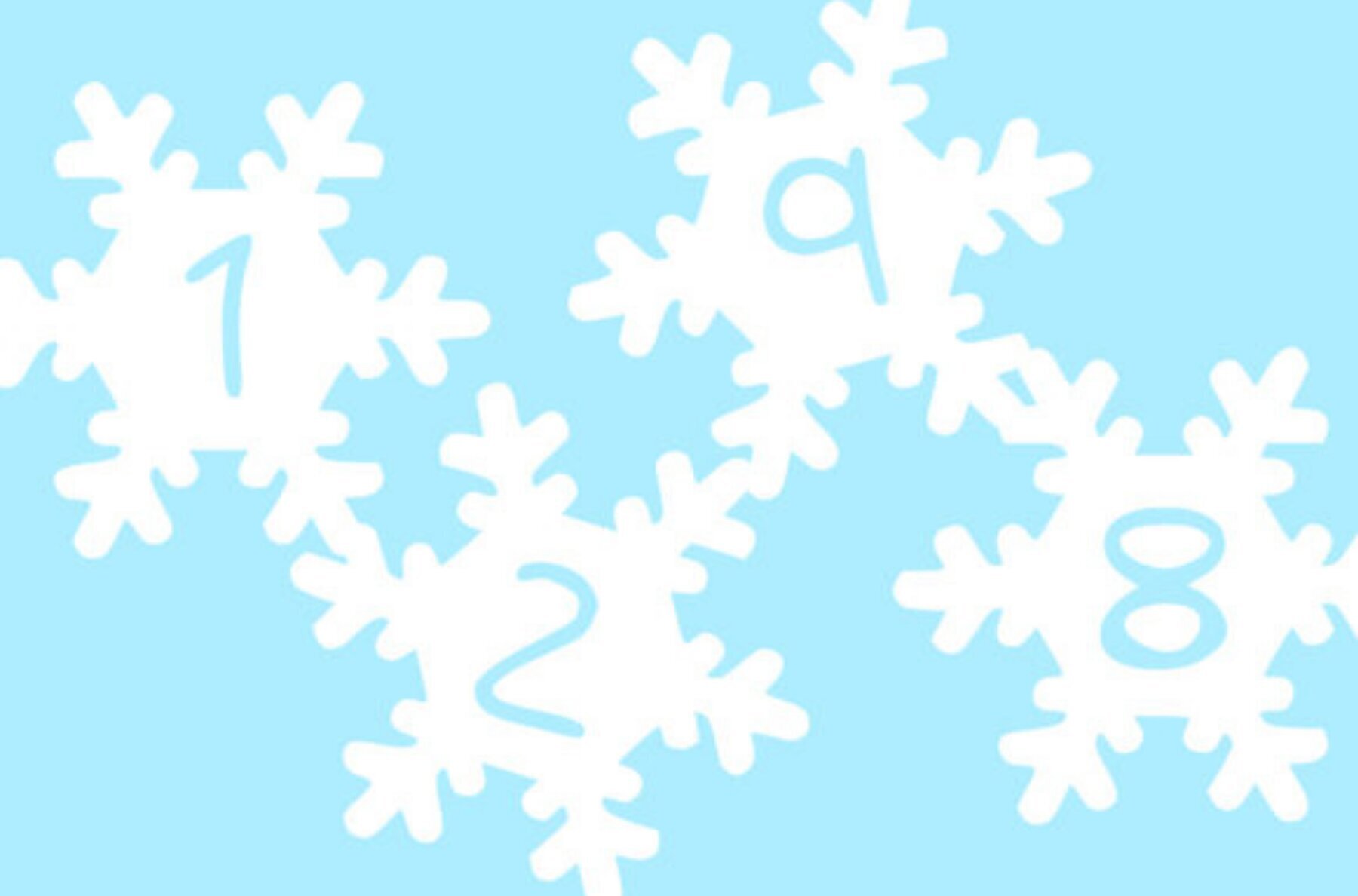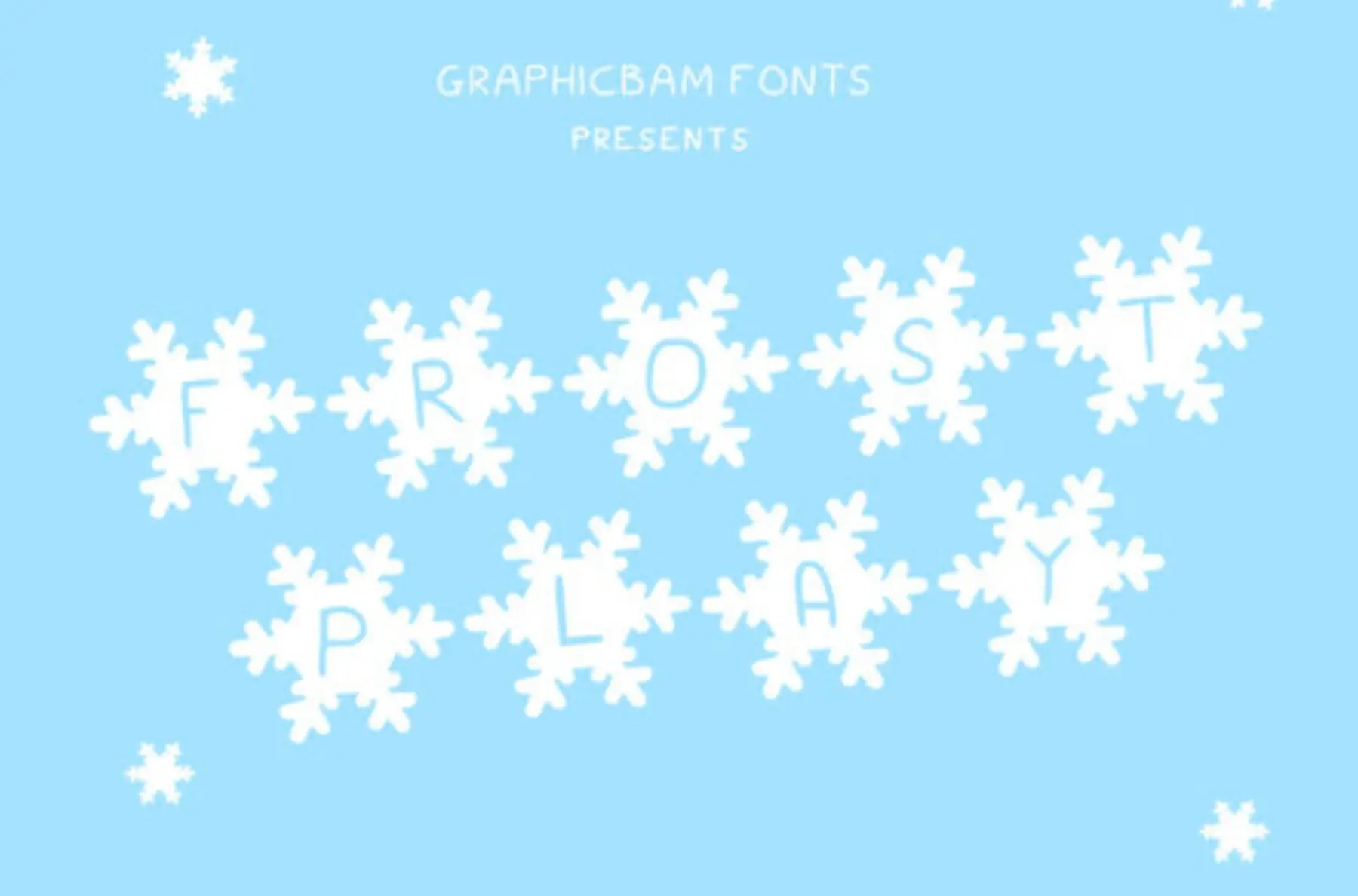
Frost Play Font
Frost Play
Introducing Frost Play, a stunning decorative font perfect for adding a touch of winter magic to your projects. Whether you're crafting festive invitations or designing seasonal graphics, this font effortlessly captures the essence of the colder months. Incorporate Frost Play into your design repertoire and watch your creative visions come to life with its enchanting style.Frost Play: A Winter Wonderland in Typography
Why Choose Frost Play?